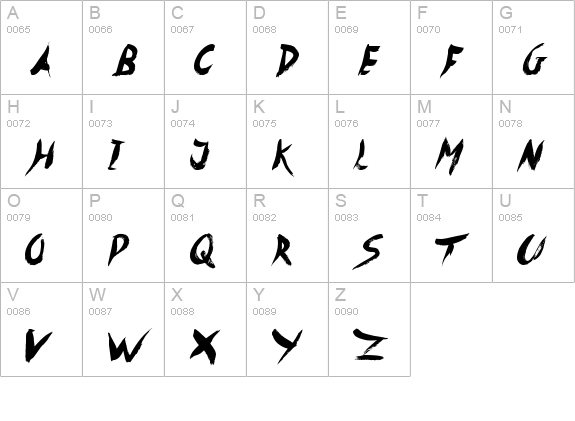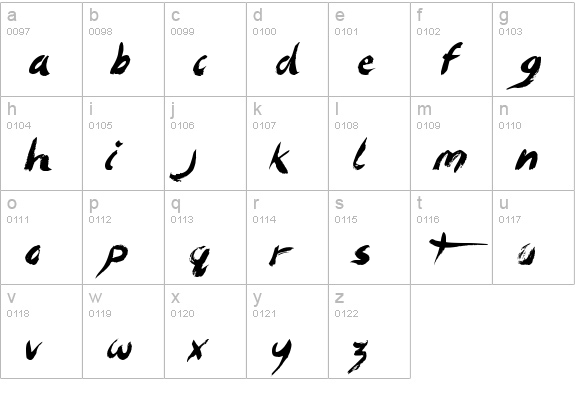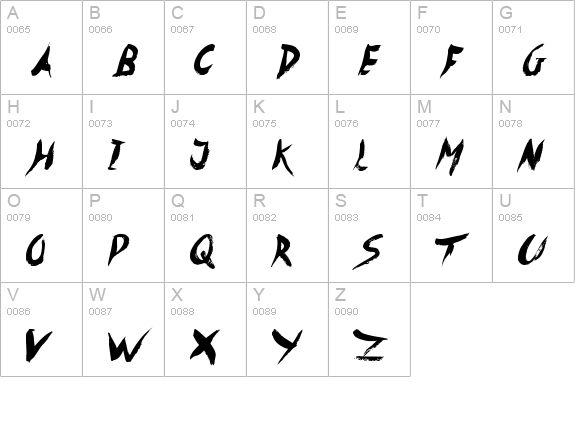
Imaginations Font is a captivating and versatile typeface that unleashes the true power of imagination. With its unique and whimsical design, this font effortlessly brings your creative ideas to life. Every letter is carefully crafted to exude a sense of wonder and playfulness, making it perfect for a wide range of projects. Whether you are designing a children's book, creating eye-catching posters, or crafting an imaginative logo, Imaginations Font is the ideal choice to make your designs stand out. Its intricate details and artistic flair add a touch of magic to any project, captivating the attention of viewers and sparking their own creative imaginations. One of the best features of Imaginations Font is that it is available for free download at FontsMarket.com. This means that you can easily access and use this font in your creative endeavors without any hassle or cost. The free availability of Imaginations Font allows you to explore your creativity without any limitations, enabling you to bring your visions to life with ease. Imaginations Font offers a wide range of stylistic options, including alternate characters and ligatures, allowing you to customize your designs and add a personal touch. Its versatility and adaptability make it suitable for various design applications, making it a must-have font for any designer, illustrator, or creative professional. In addition to its aesthetic appeal, Imaginations Font also boasts excellent legibility, ensuring that your message is conveyed clearly and effectively. Whether used for headlines, body text, or decorative elements, this font maintains readability while adding a touch of whimsy and charm. Imaginations Font is not just a font; it is an invitation to explore the limitless boundaries of your imagination. So, embrace the magic of this enchanting typeface and let your creativity run wild. Download Imaginations Font for free at FontsMarket.com and embark on a journey of endless possibilities.